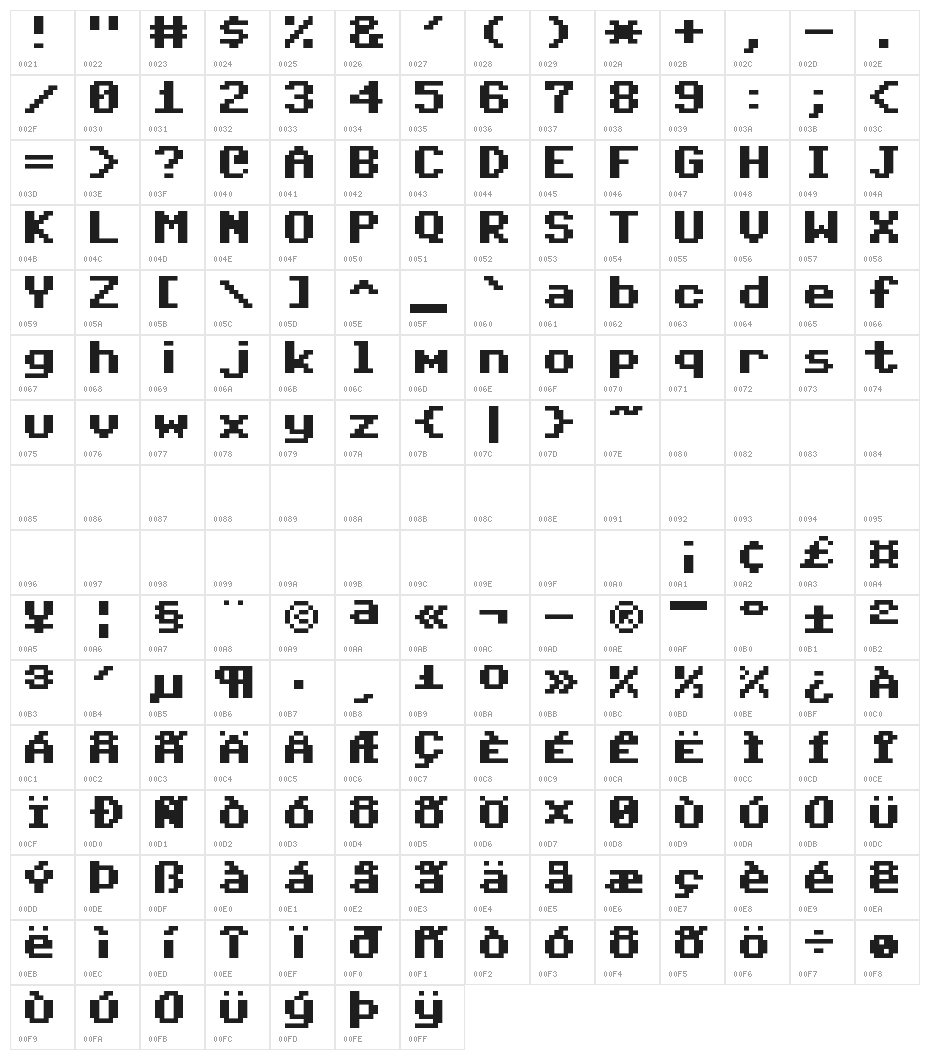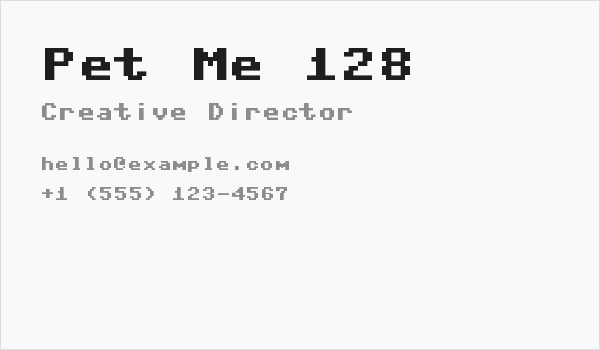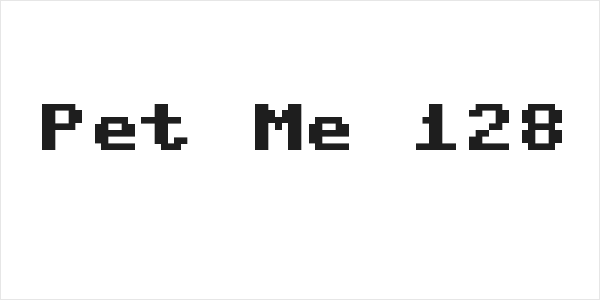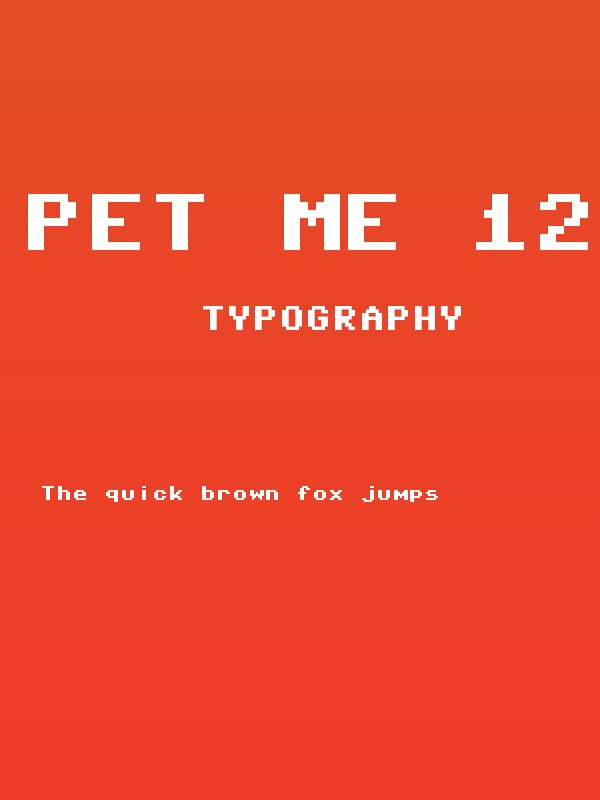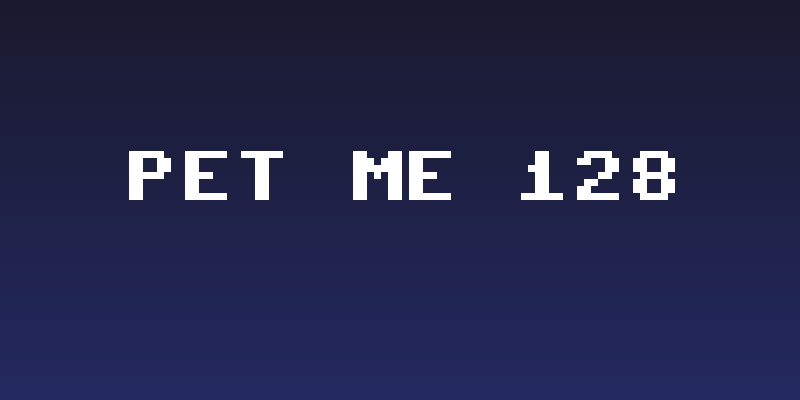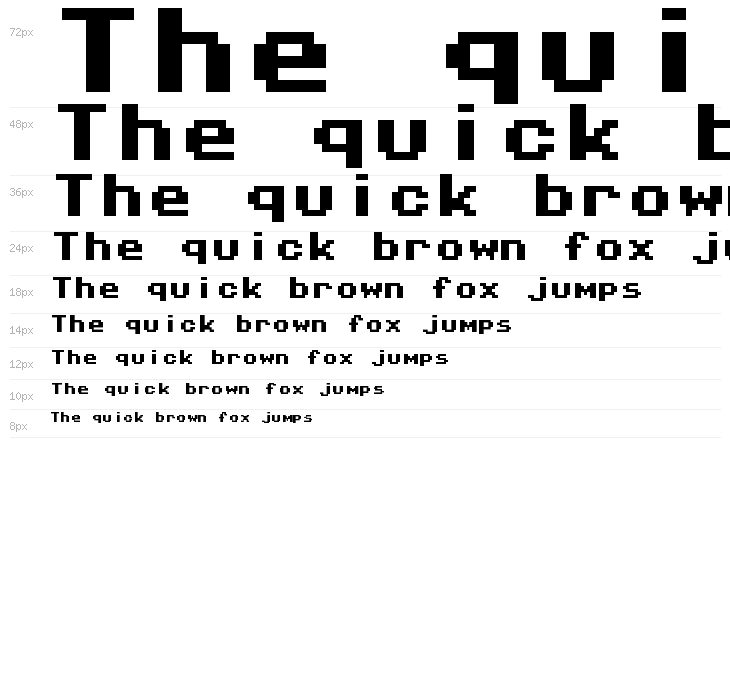
Pet Me 128 Font
Pet Me 128 Description
This font features a pixelated, blocky design reminiscent of early digital or video game text. Each character is composed of uniform square blocks, giving it a distinctly retro and digital aesthetic. The uppercase and lowercase letters maintain a consistent height, with the lowercase being slightly smaller. Numbers and special characters follow the same pixelated style, ensuring uniformity across all glyphs. The font's simplicity and geometric nature make it highly legible, even at smaller sizes. Its nostalgic appeal is perfect for projects aiming to evoke a sense of the early digital era.
| Overall Style | Retro, Digital |
| Use Case | Headlines, Logos, Digital Art |
| Proposed Projects | Ideal for video game design, retro-themed graphics, digital art, and any project seeking a nostalgic, digital look. |